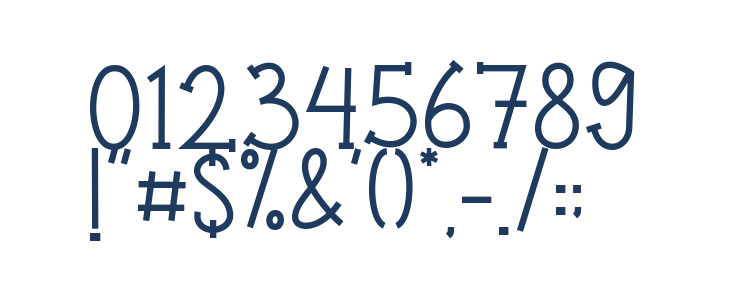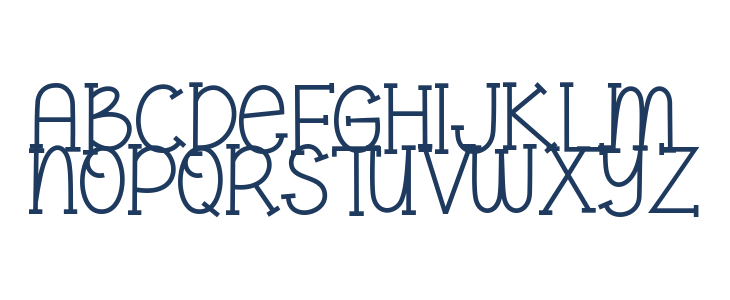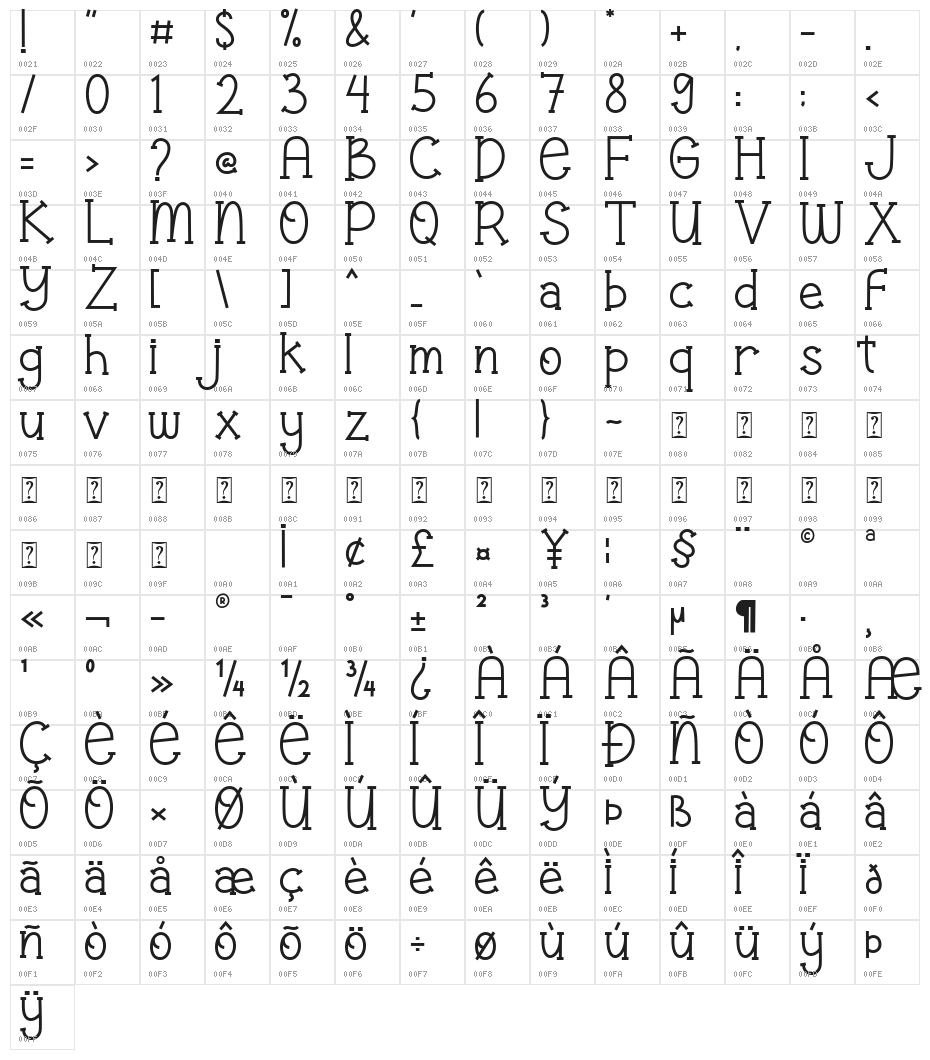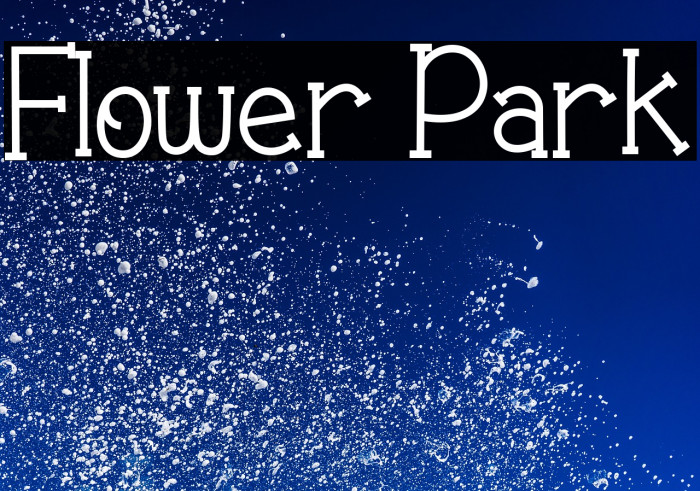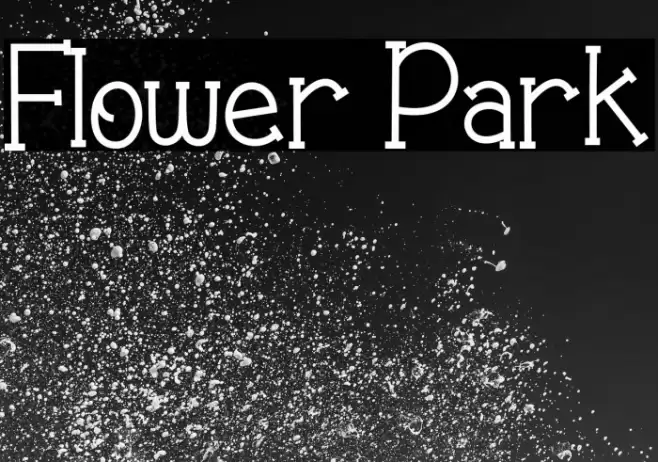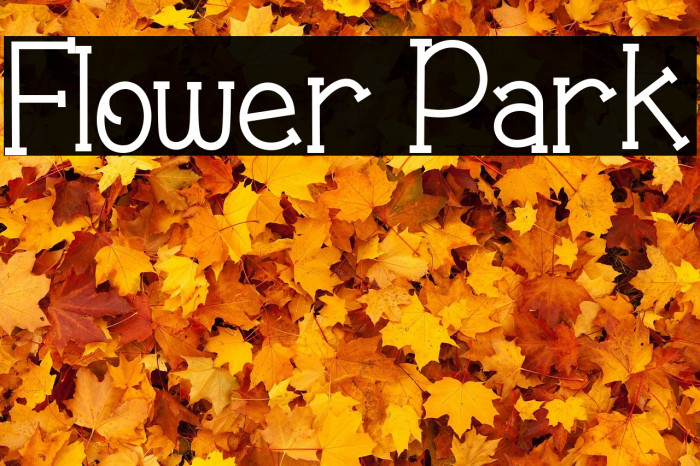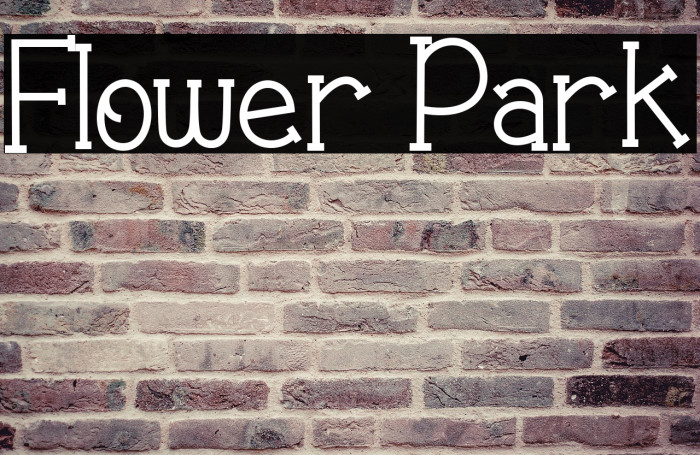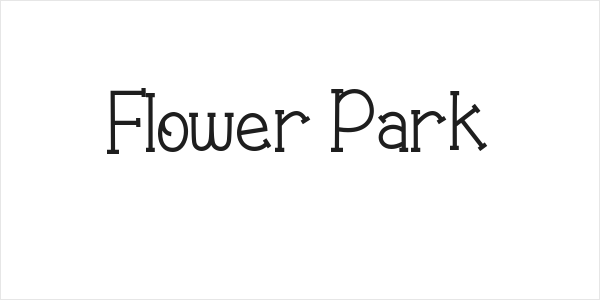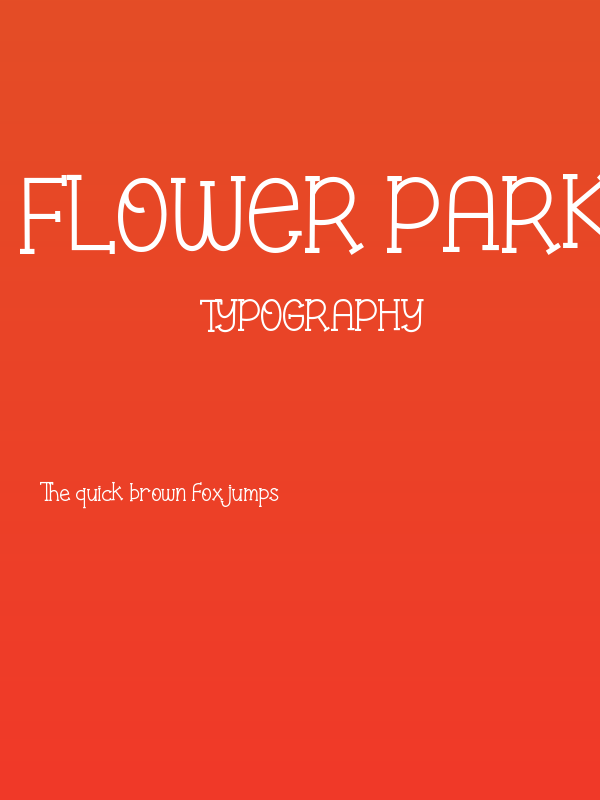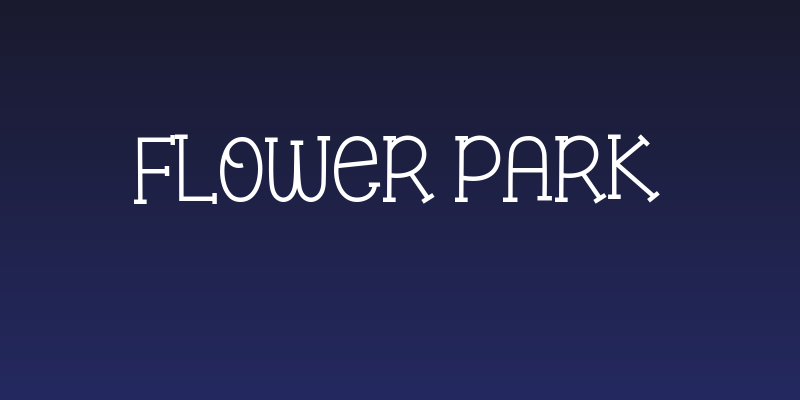
Flower Park Font
Flower Park Description
A playful, handwritten style font with a casual and whimsical appearance, featuring slightly irregular letterforms and a mix of thin and thick strokes.
| Overall Style | Casual, Playful, Handwritten |
| Use Case | Invitations, Greeting Cards, Children's Books, Creative Projects |